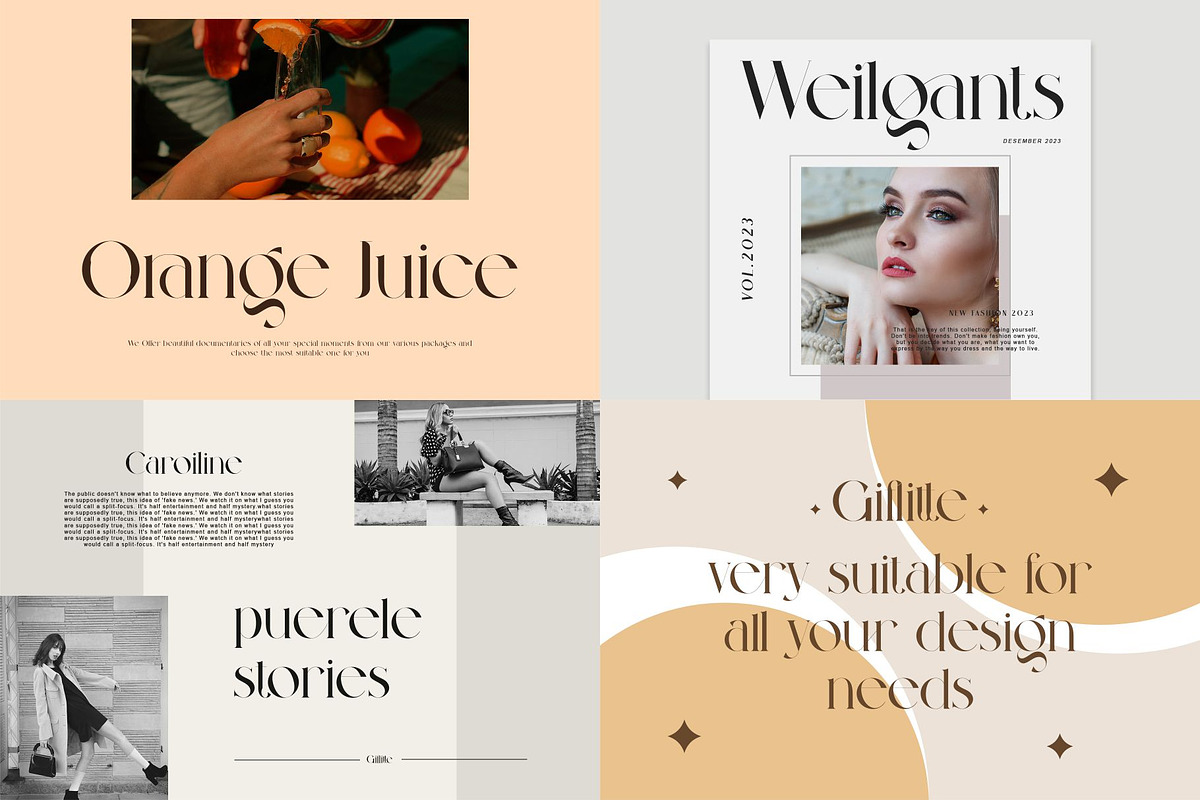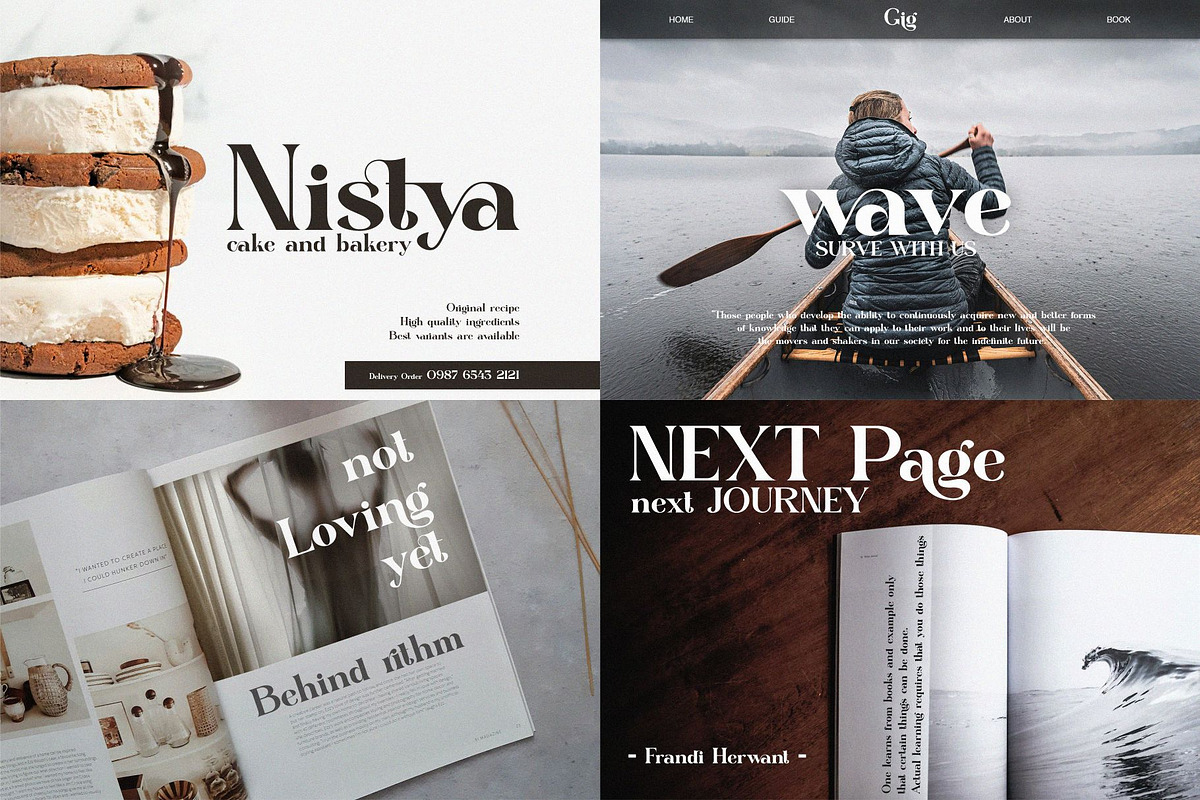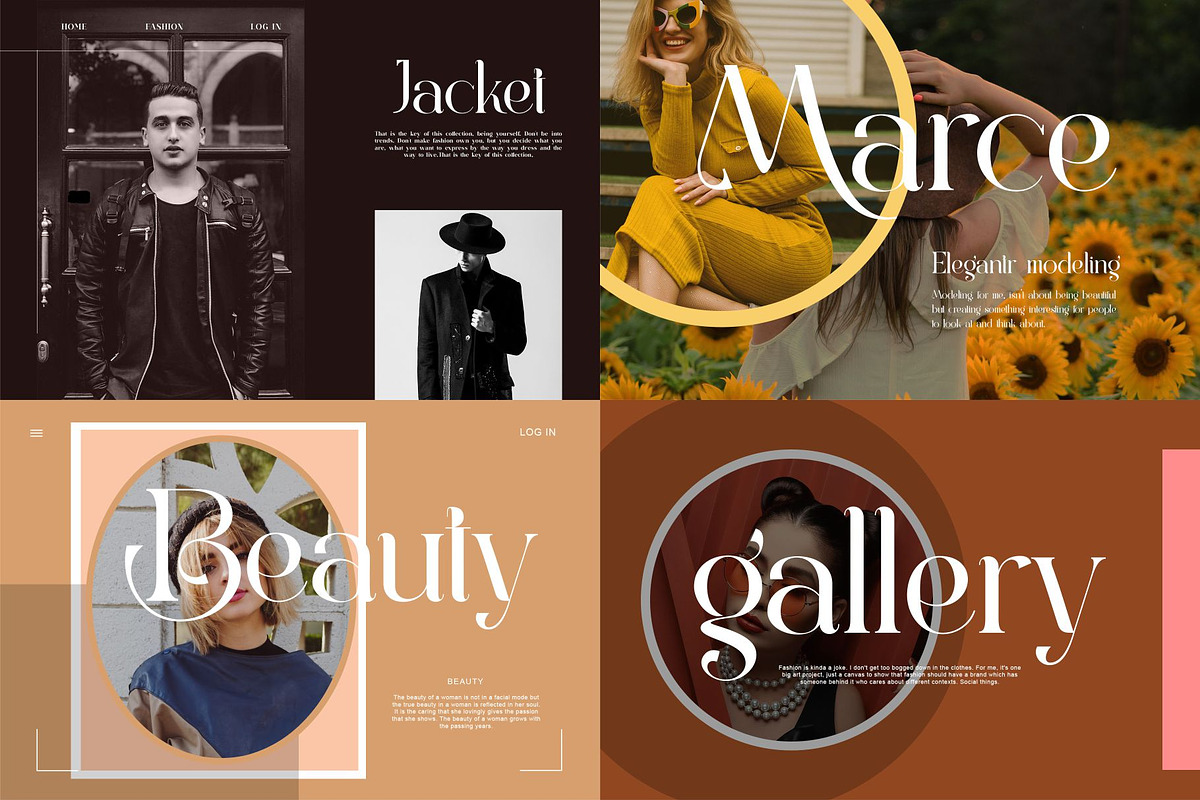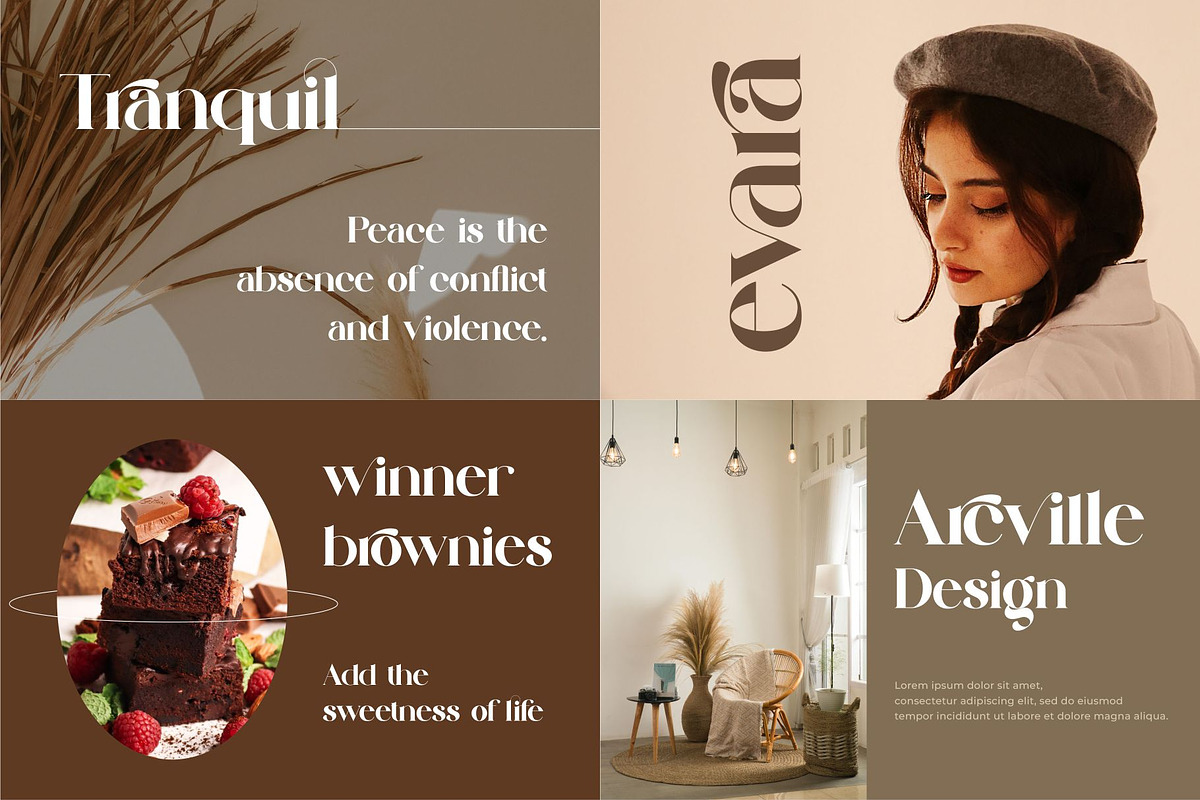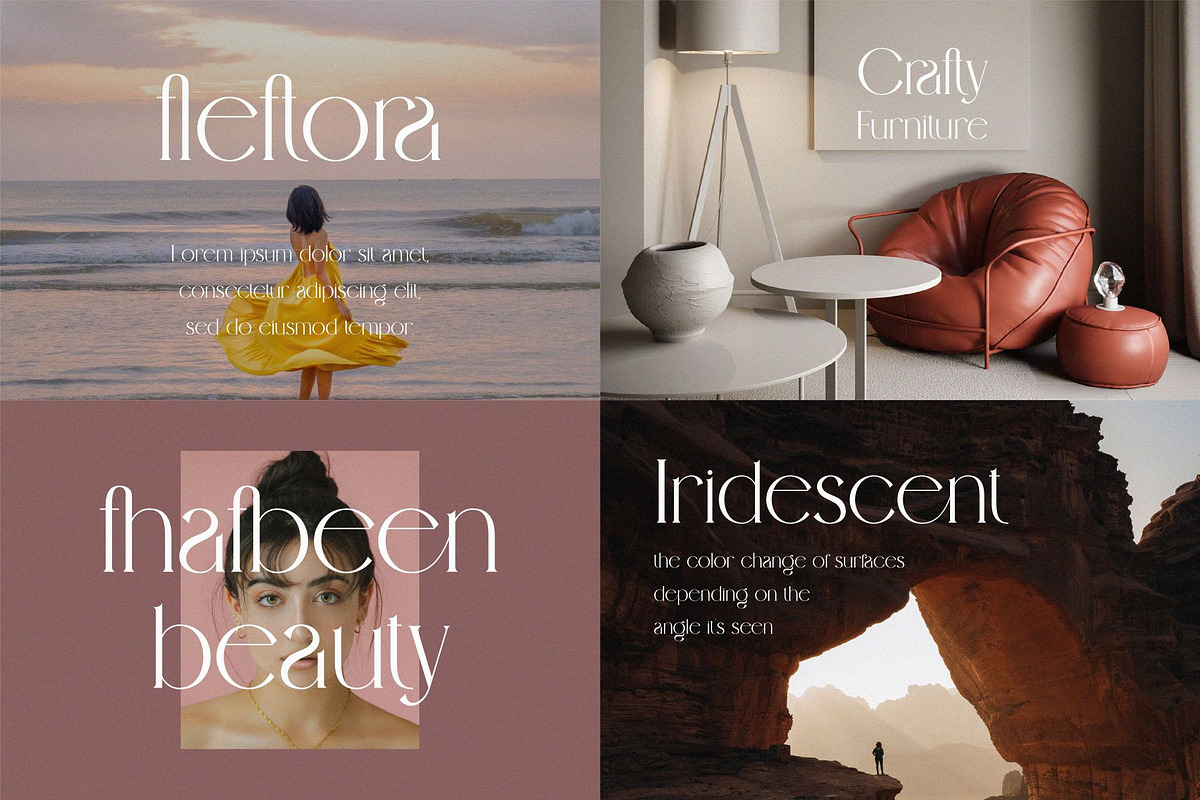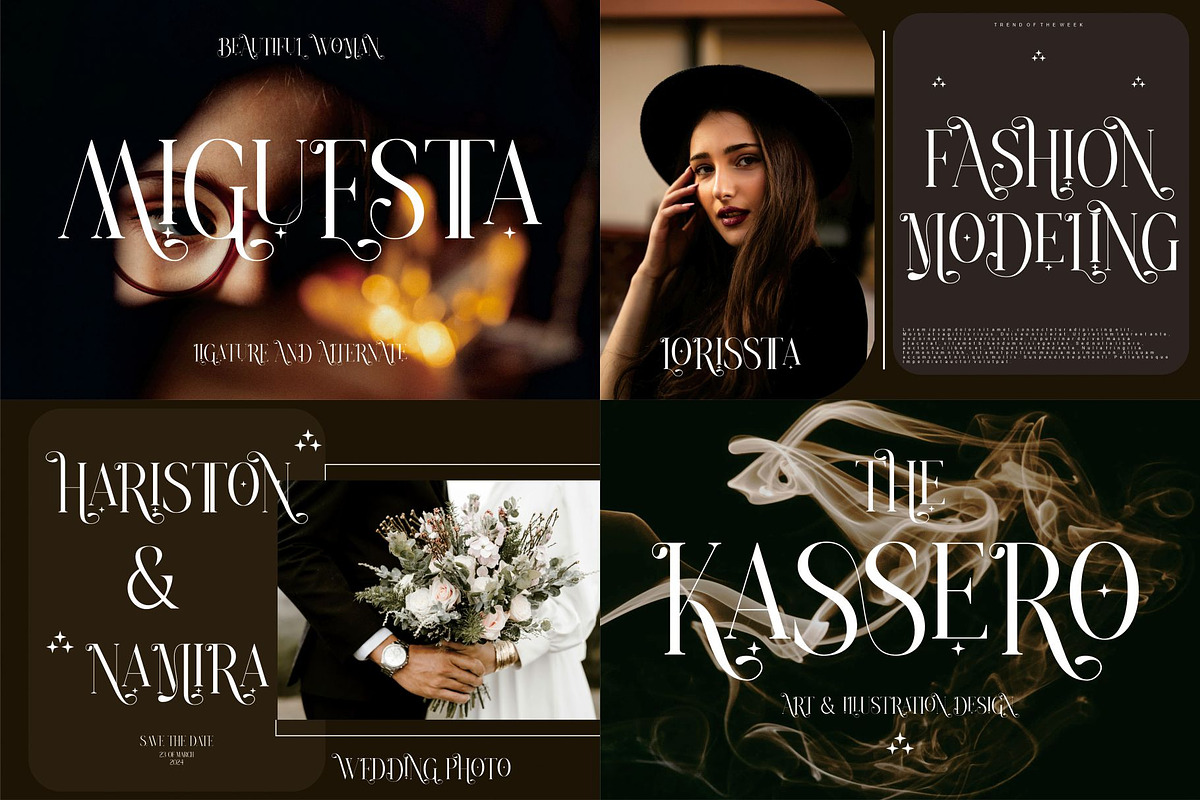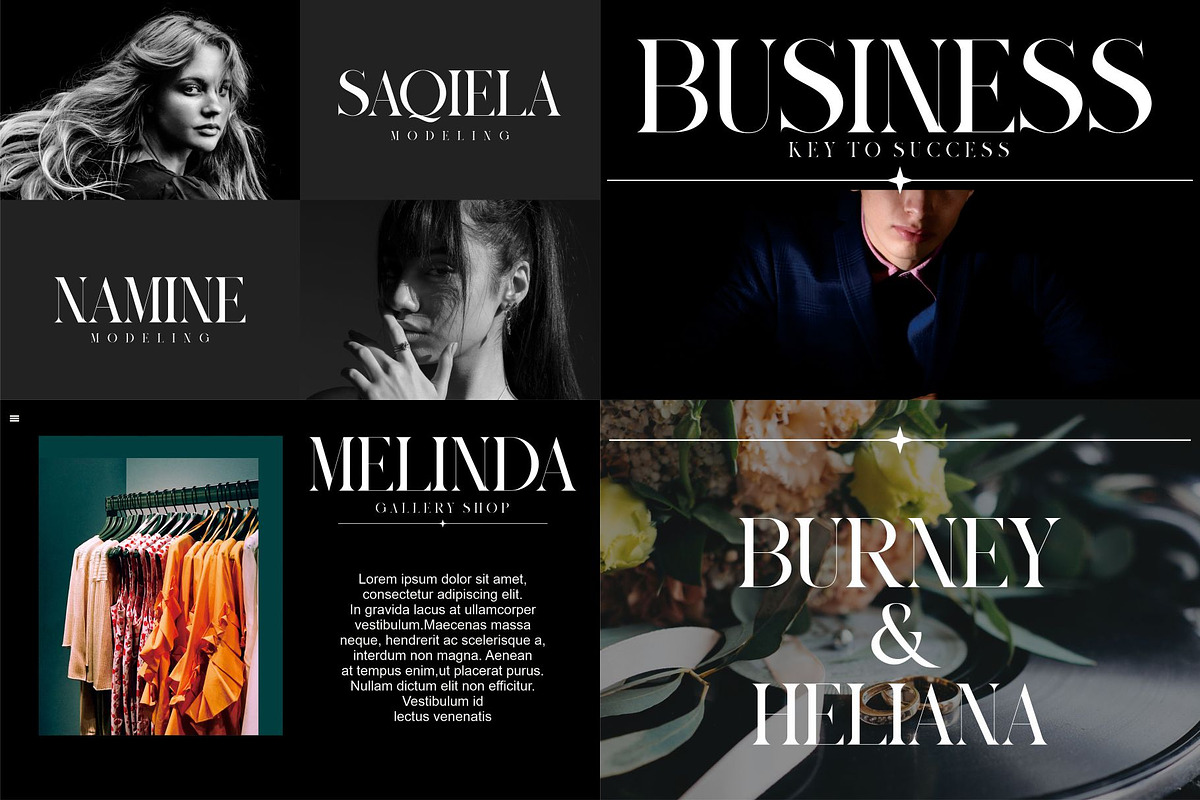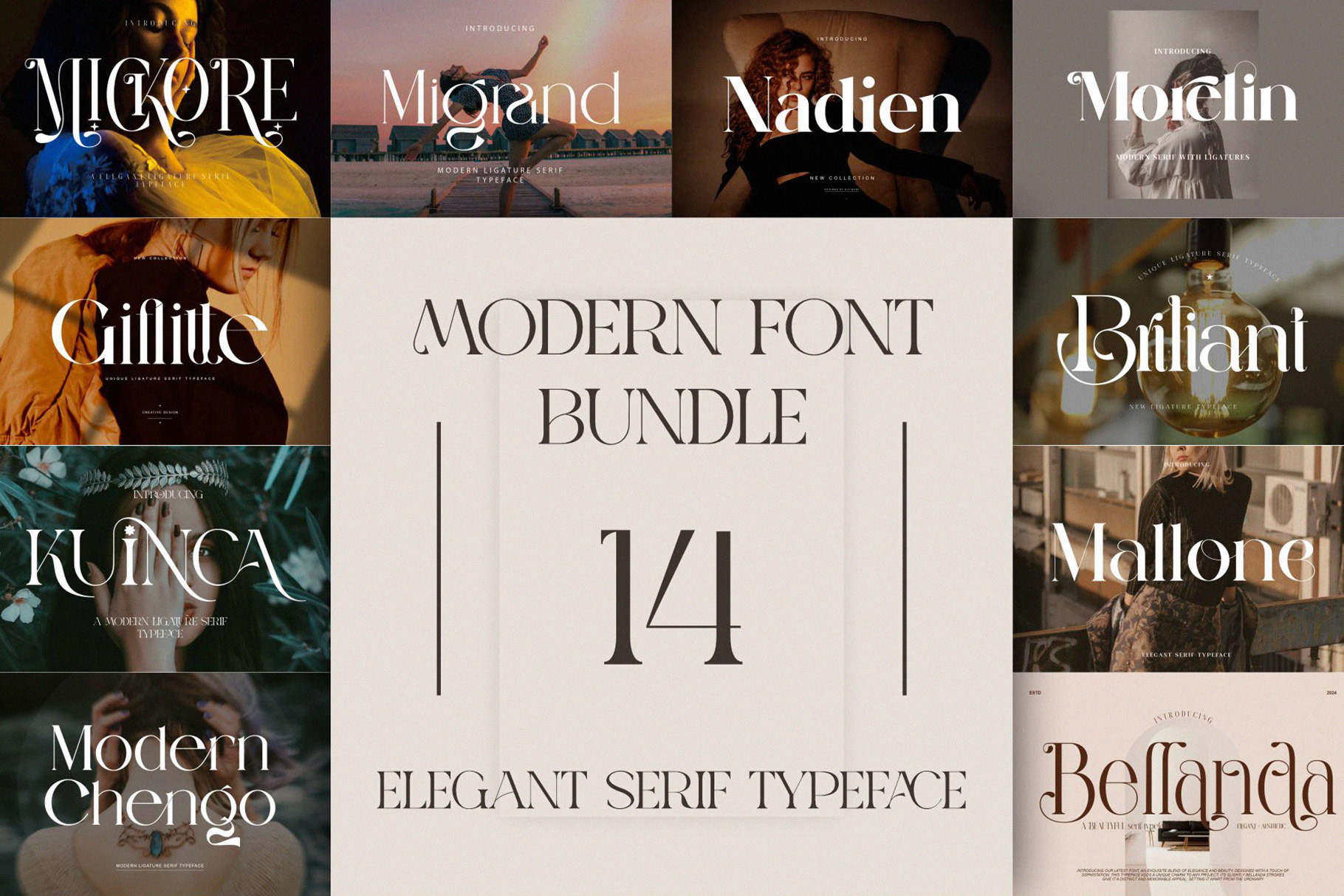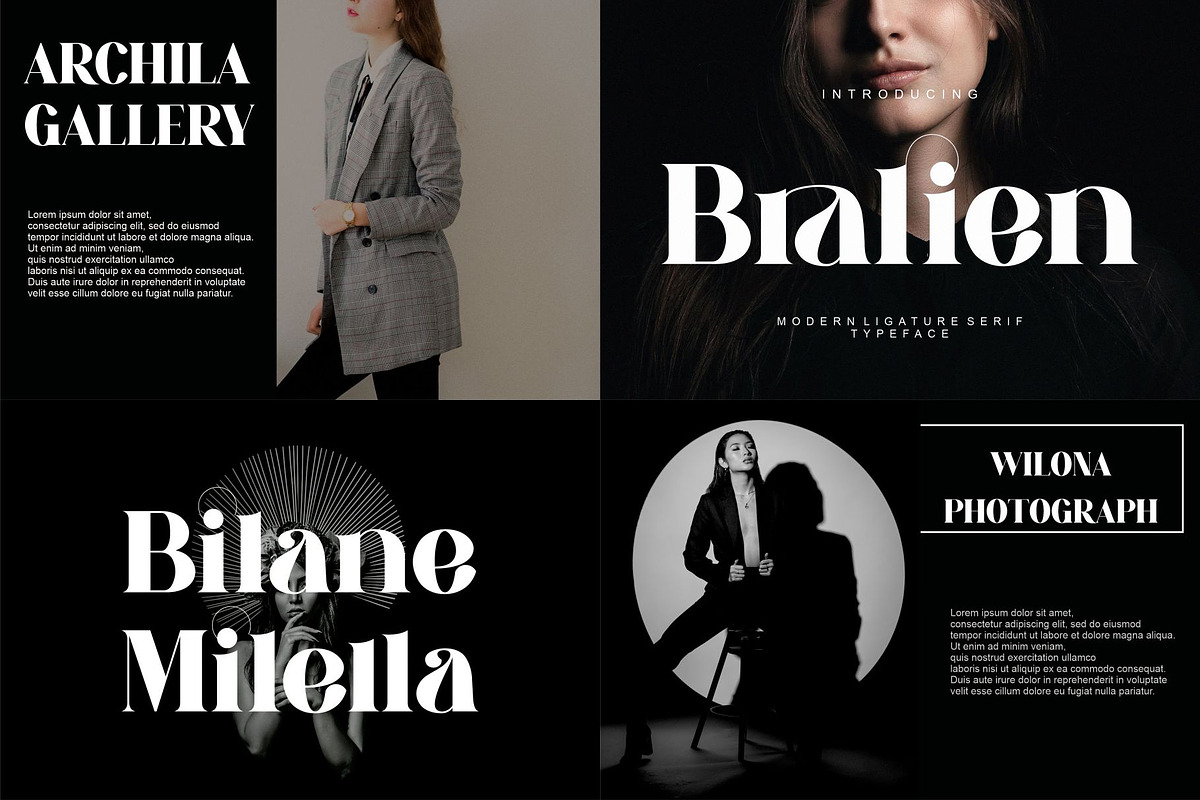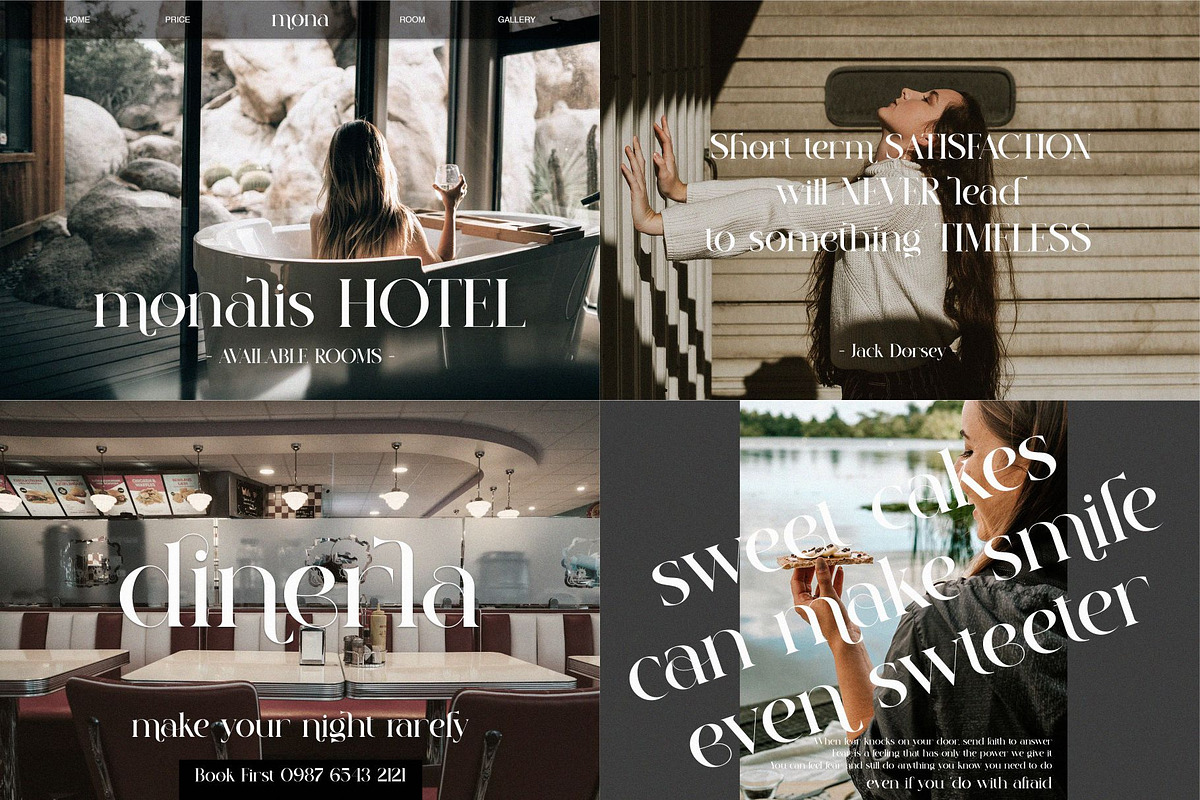
MODERN FONT BUNDLE
WOW!!! NEW MODERN FONT BUNDLE - an incredible BUNDLE with the ligature font style and the duo font. Ligature font bundle is suitable font for many creative products & designs. Go ahead and make Branding, Logos, Blog, Social Media, Invites, Wedding, Poster, Magazine, Quotes, Packaging, Photo Overlays, Poatcard, Advertisements, Fshion and others. This bundle contain 14 font
- Modern Chengo Ligature Serif Typeface
- Migrand Ligature Serif Typeface
- Nadien Serif Typeface
- Morelin Ligature Serif Typeface
- Bralien Ligature Serif Typeface
- Giflitte Ligature Serif Typeface
- KUINCA Ligature Serif Typeface
- Mallone Ligature Serif Typeface
- Bollring Ligature Serif Typeface
- Briliant Ligature Serif Typeface
- MUNIER Serif Typeface
- Ballies Serif Typeface
- MICKORE Ligature Serif Typeface
- Bellanda Ligature Serif Typeface